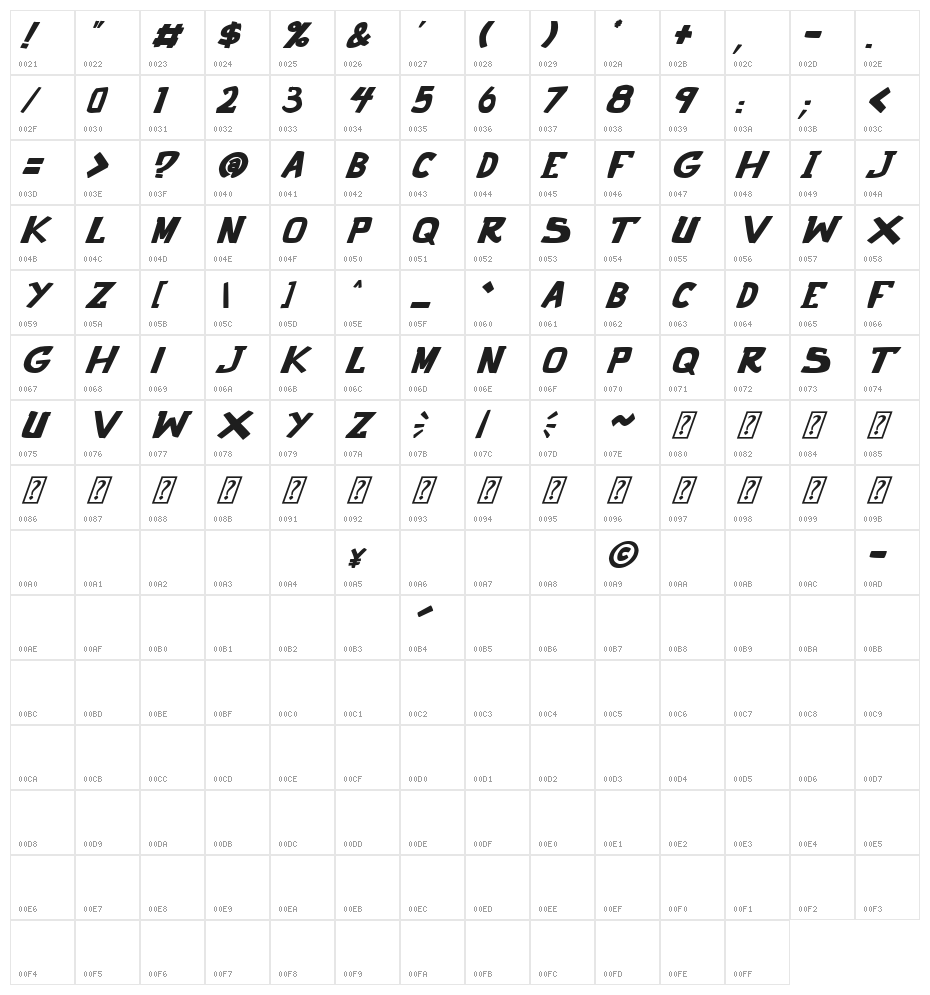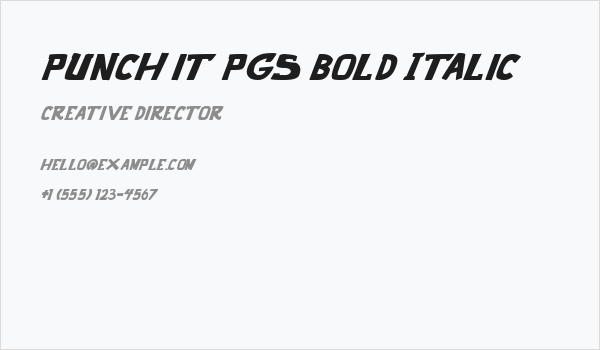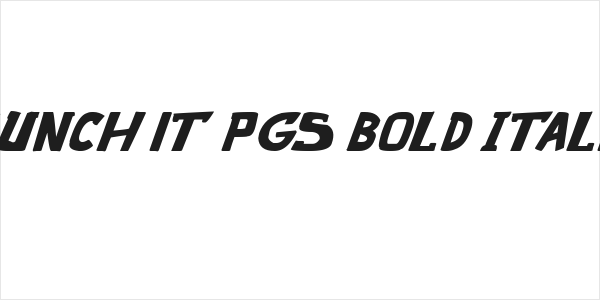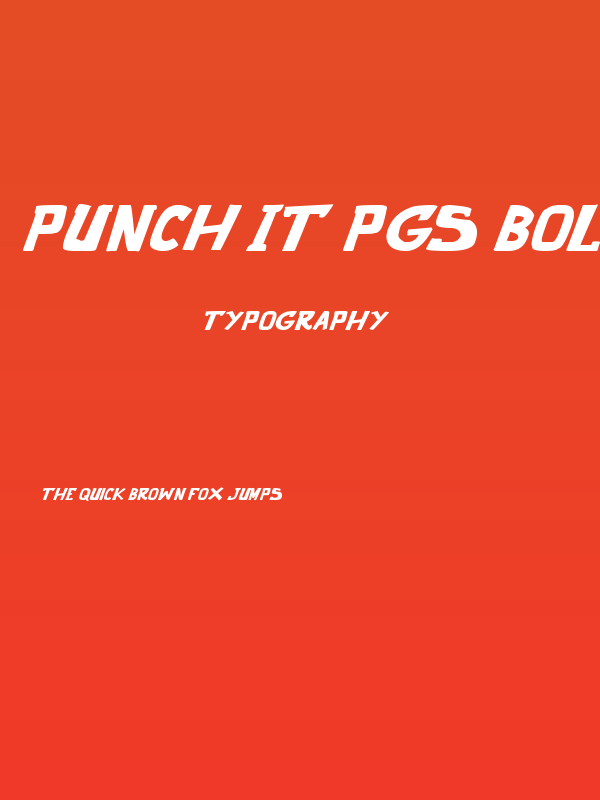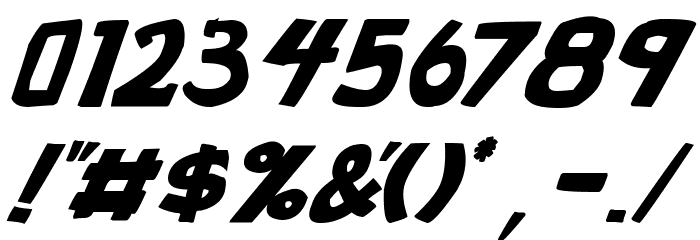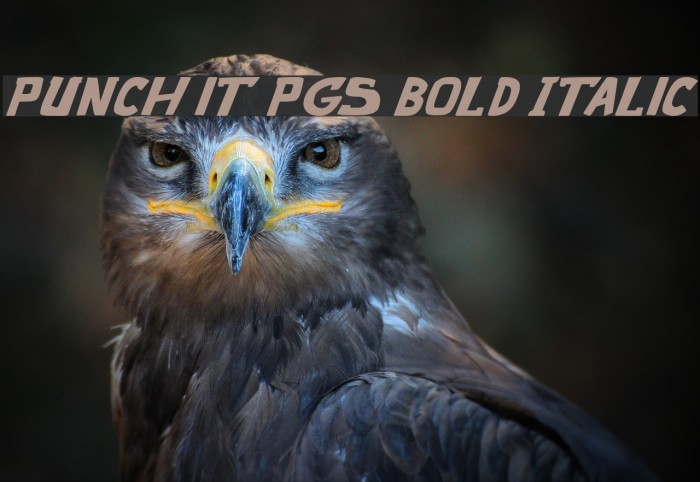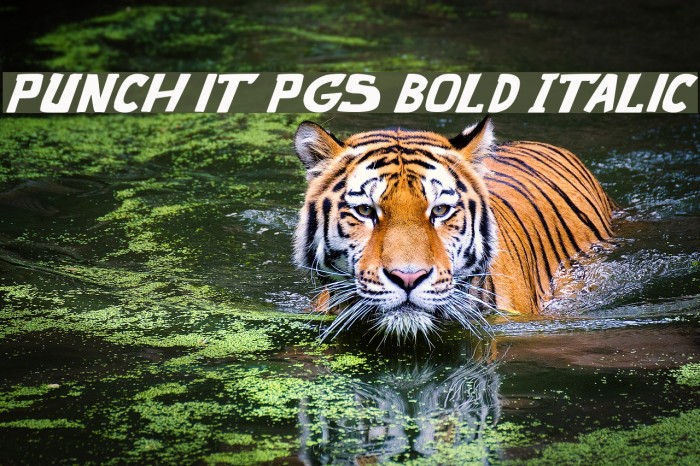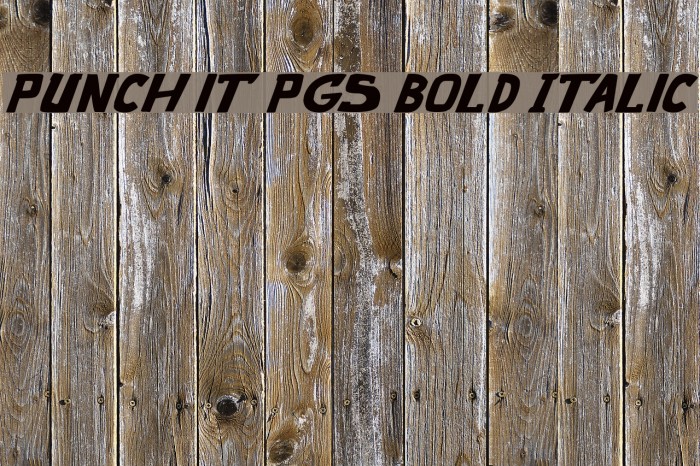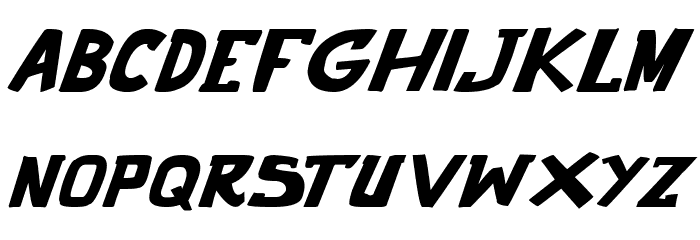
punch it PGS Bold Italic Font
punch it PGS Bold Italic Description
This font features a bold and dynamic style with a strong italic slant, giving it a sense of motion and energy. The characters are robust and thick, making them highly visible and impactful. The angular design of the letters adds a modern and edgy feel, suitable for attention-grabbing headlines or branding. The numerals and special characters maintain the same bold and italicized characteristics, ensuring consistency across all text elements. The overall appearance is assertive and confident, making it ideal for projects that require a strong visual presence.
| Proposed Projects | Ideal for sports branding, dynamic posters, or any project needing a bold statement. |